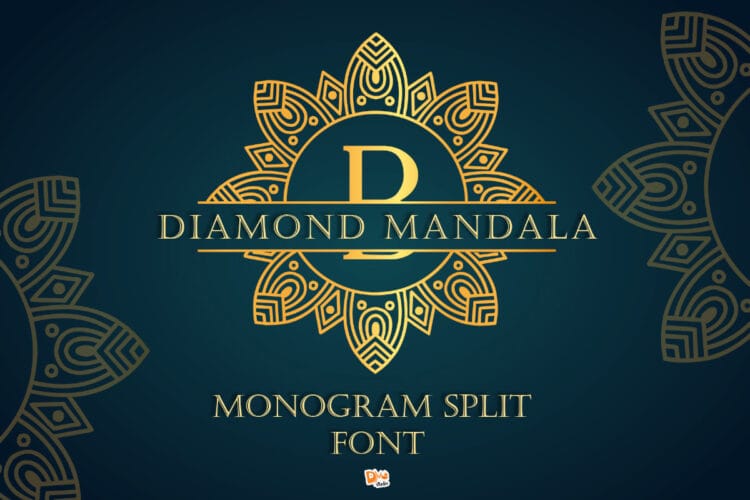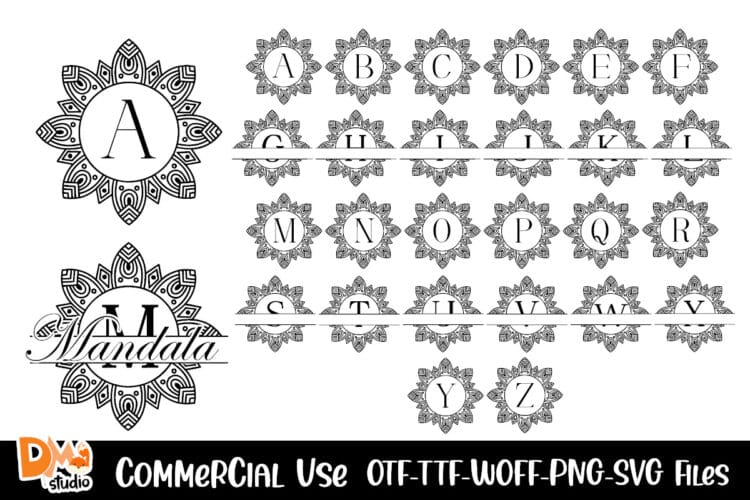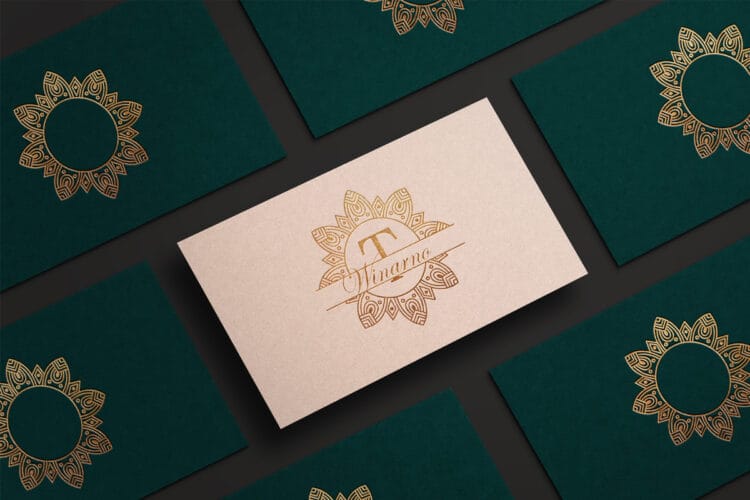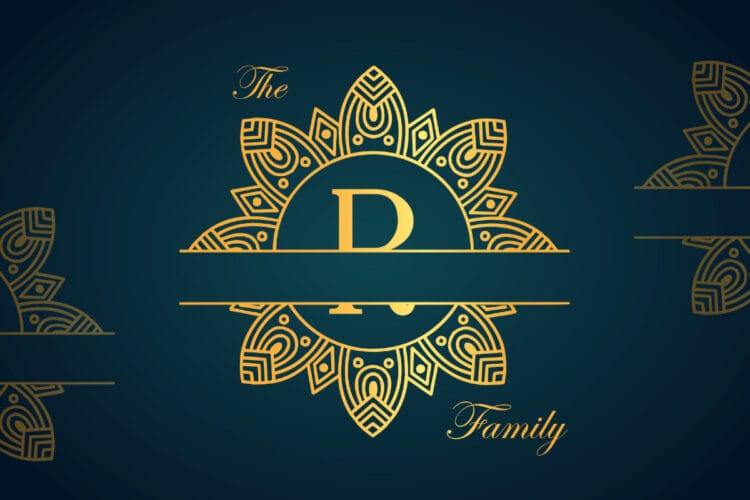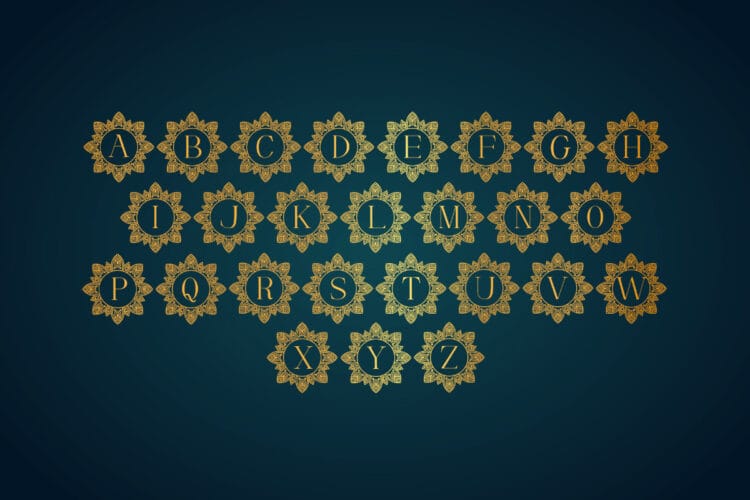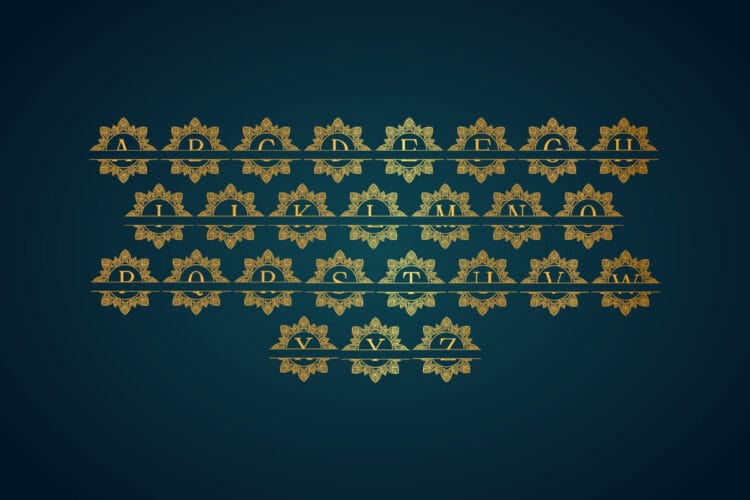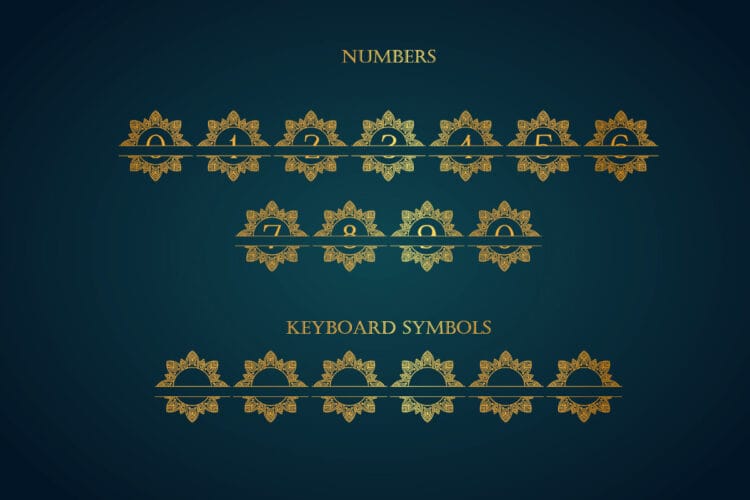
mandala monogram font
Diamond Mandala Monogram
Diamond Mandala Monogram Split
Introducing this beauty and gorgeous Diamond mandala monogram font.
Make your design more exclusive by using this monogram, comes in two styles : regular and split
– All in caps
– Two styles monogram : Regular and split
– Numbers
– Empty frame ( entire keyboard symbols )